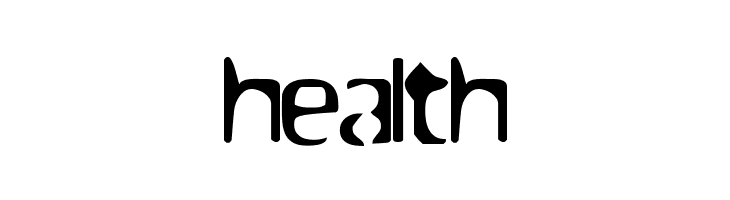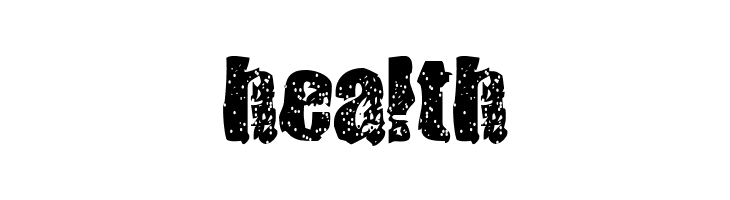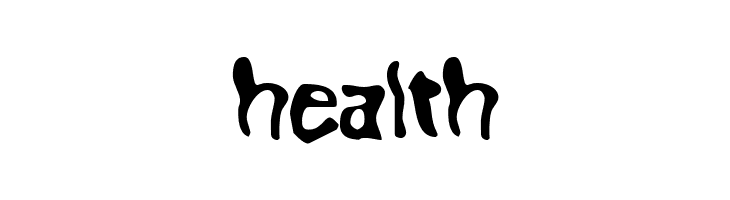
( Fonts by Ben Nathan )
A bold, futuristic font with rounded, alien-like letterforms.
( Fonts by Ben Nathan )
A bold, distressed font with a grunge texture and rugged appearance.
( Fonts by Ben Nathan )
A decorative, distressed font with jagged edges and a monstrous aesthetic.
( Fonts by Ben Nathan )
A playful, bold font with wavy, hand-drawn characters.